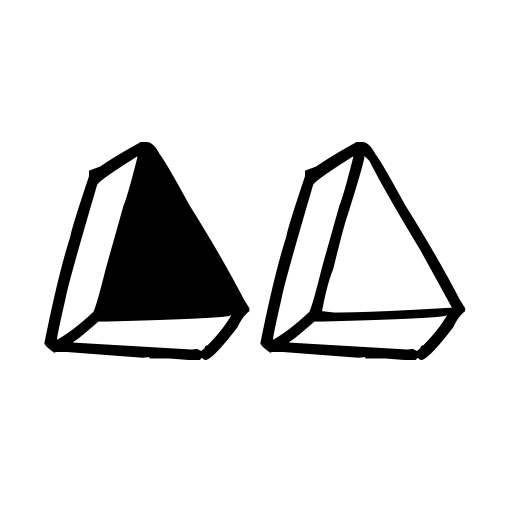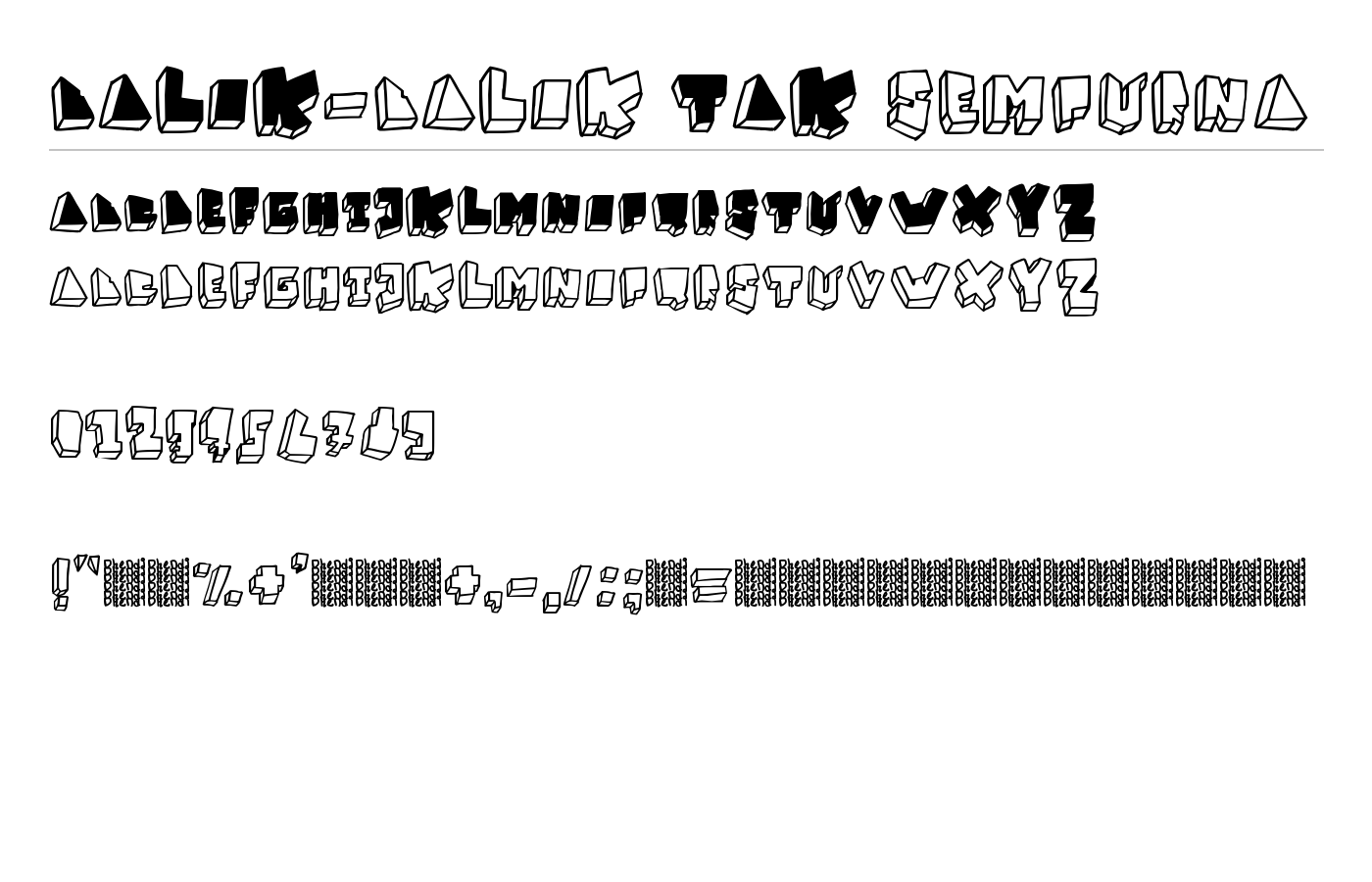
BALOK-balok TAK sempurna is a bold, playful display font characterized by its chunky, irregular block shapes that give a hand-drawn, three-dimensional effect. Its quirky, geometric letterforms exude a fun, informal vibe perfect for creative and youthful designs. This font works best in eye-catching headlines, posters, and branding that aim to stand out with a unique, artistic personality.
BALOK-balok TAK sempurna Font
About BALOK-balok TAK sempurna Font